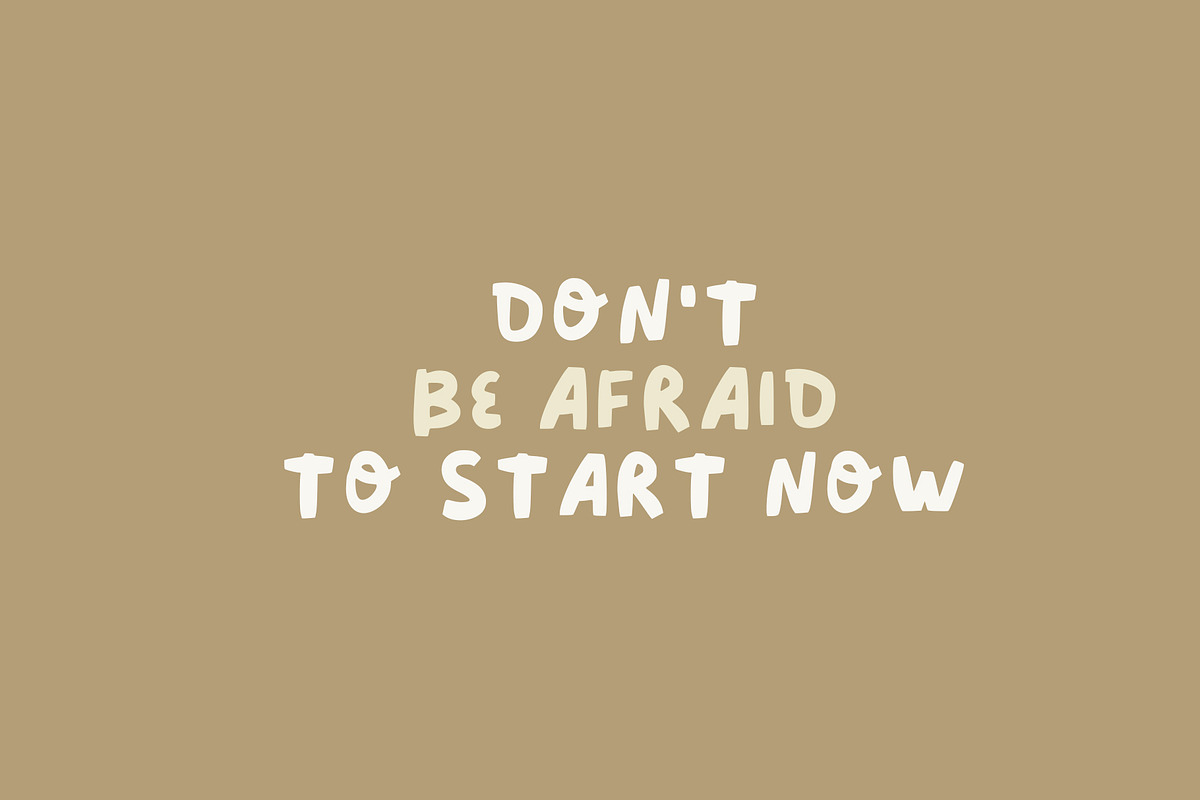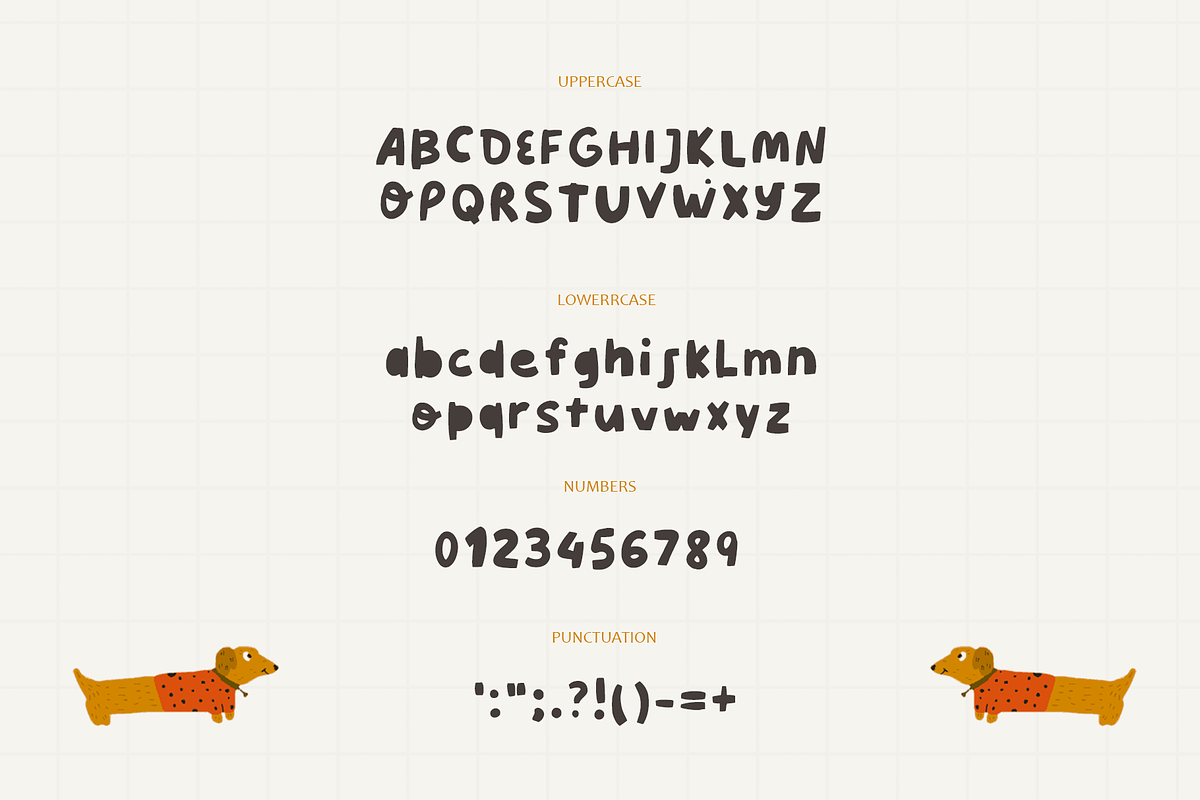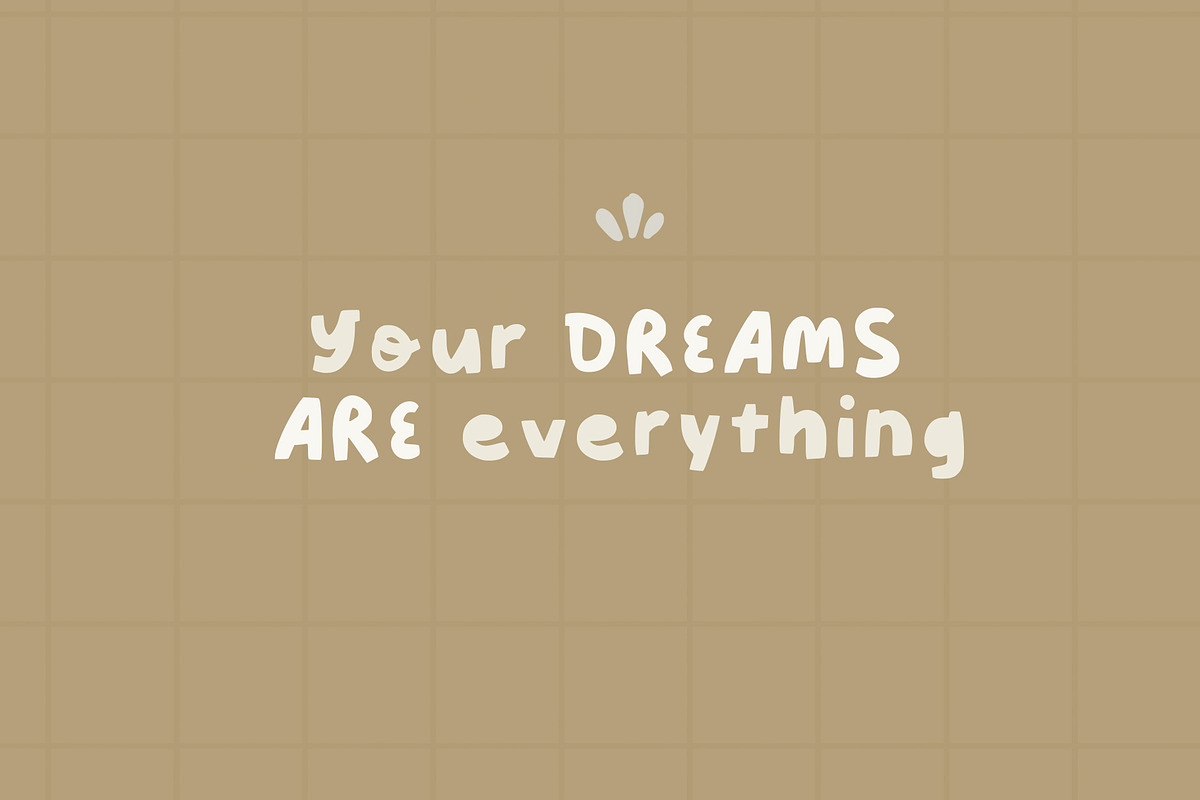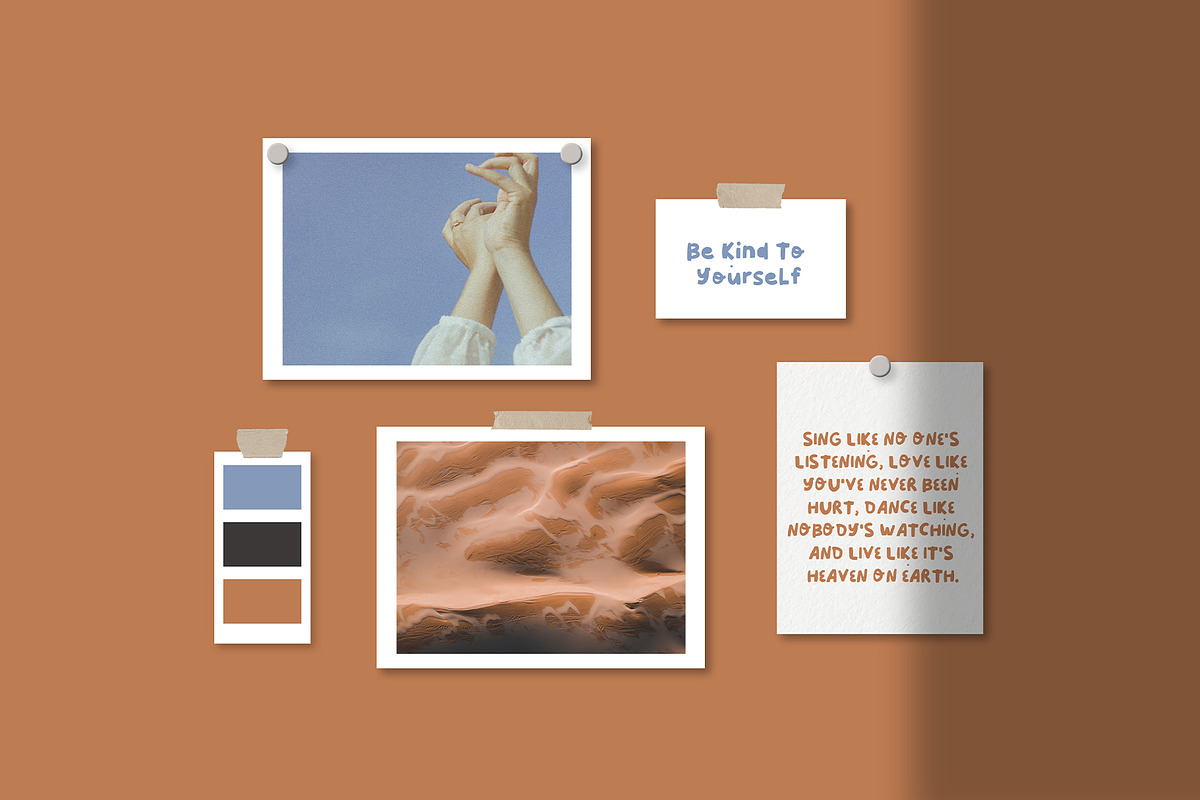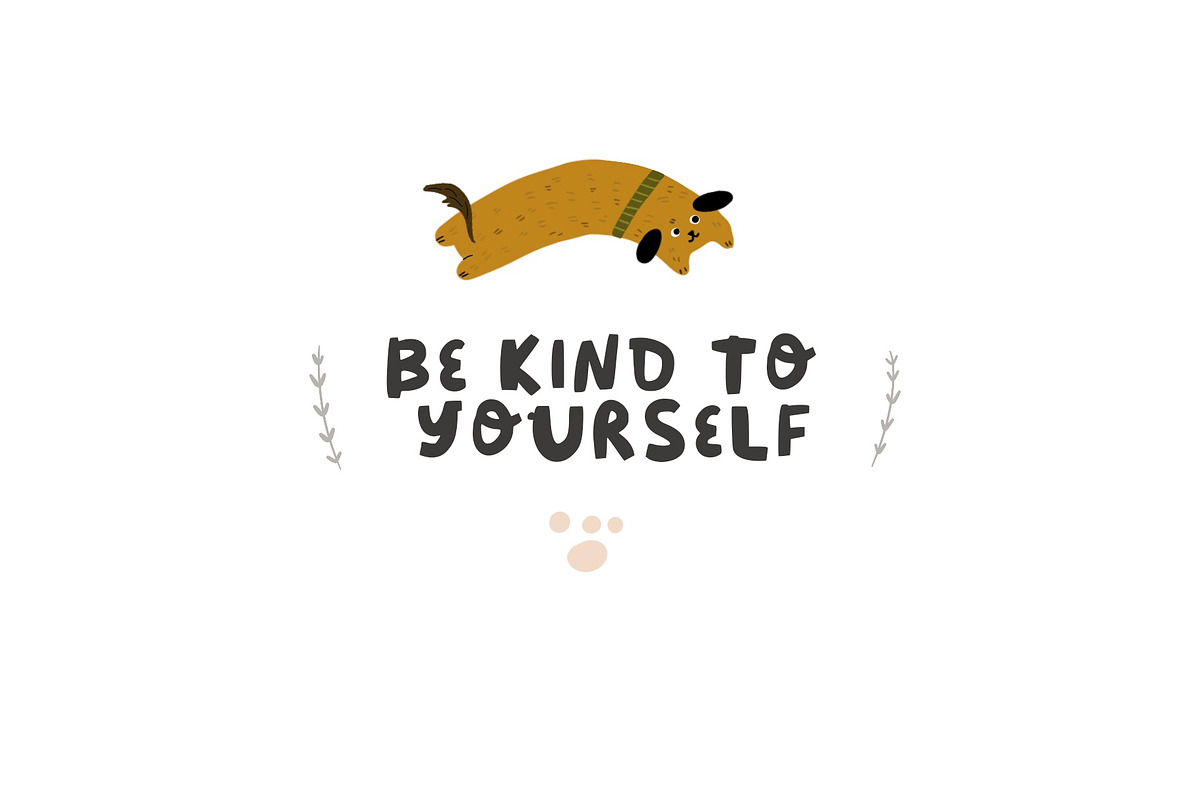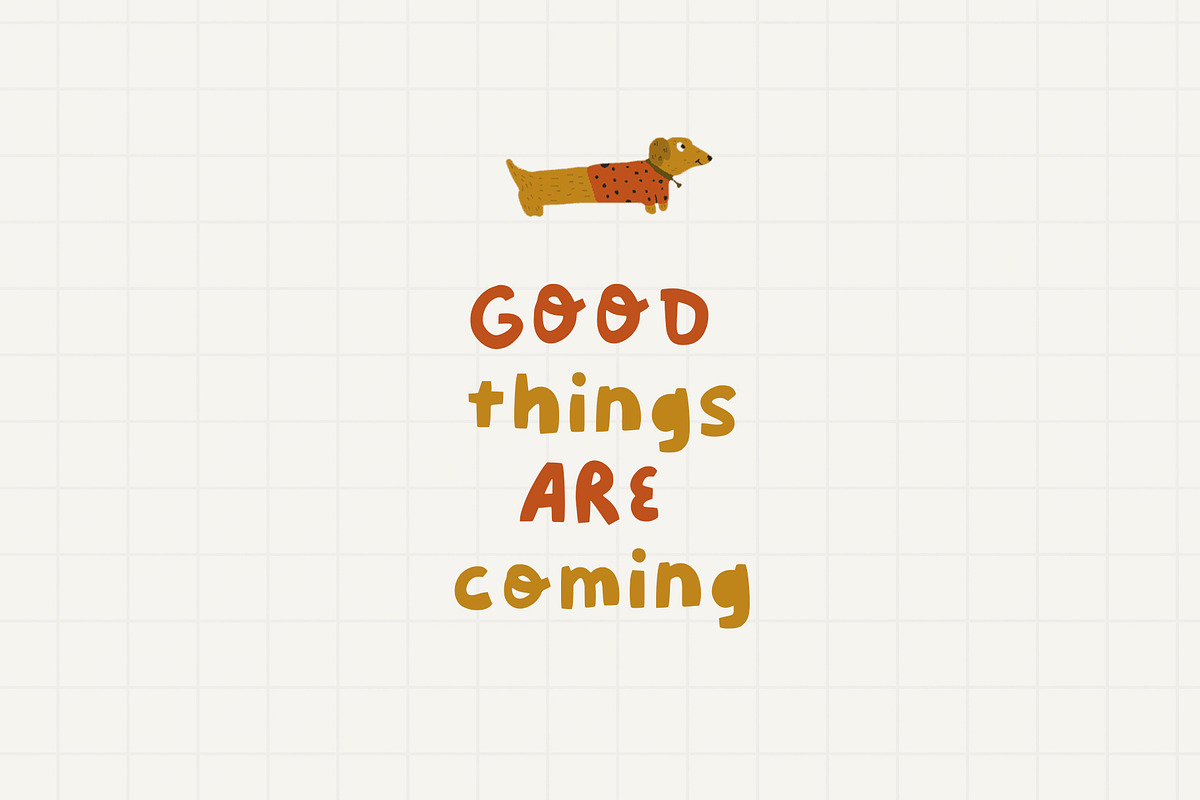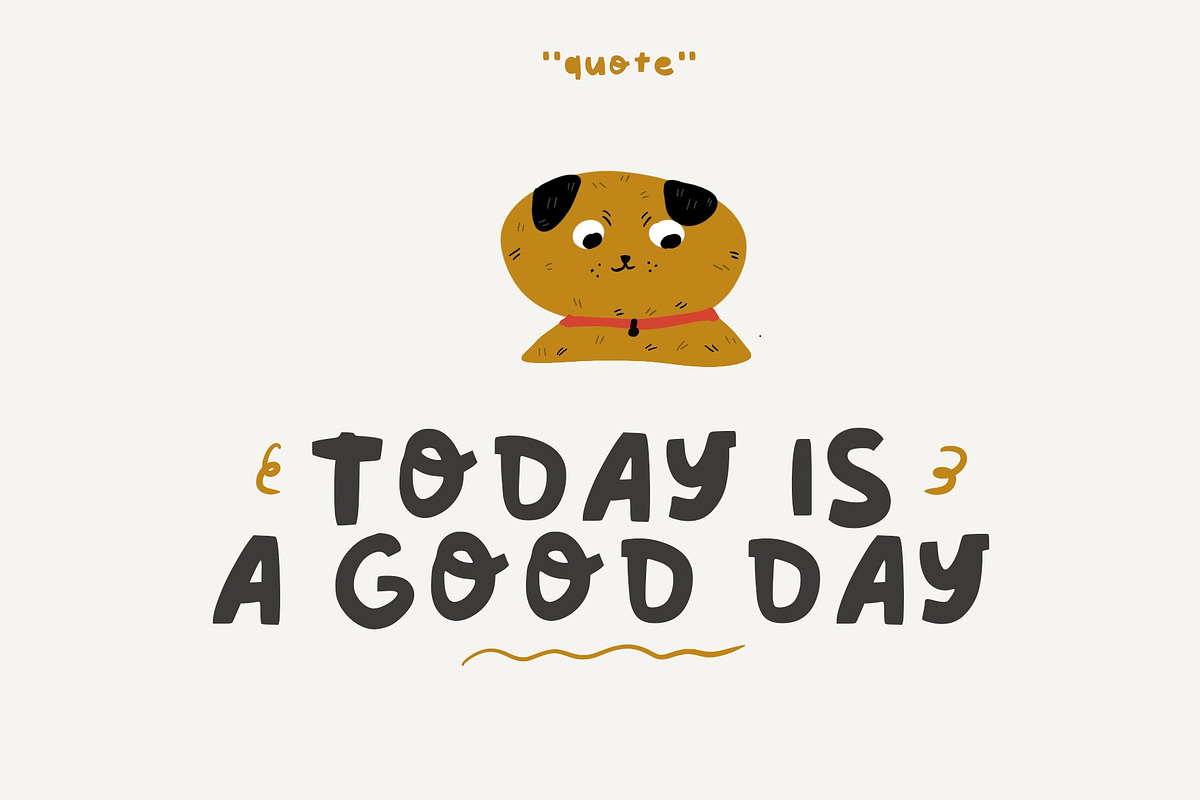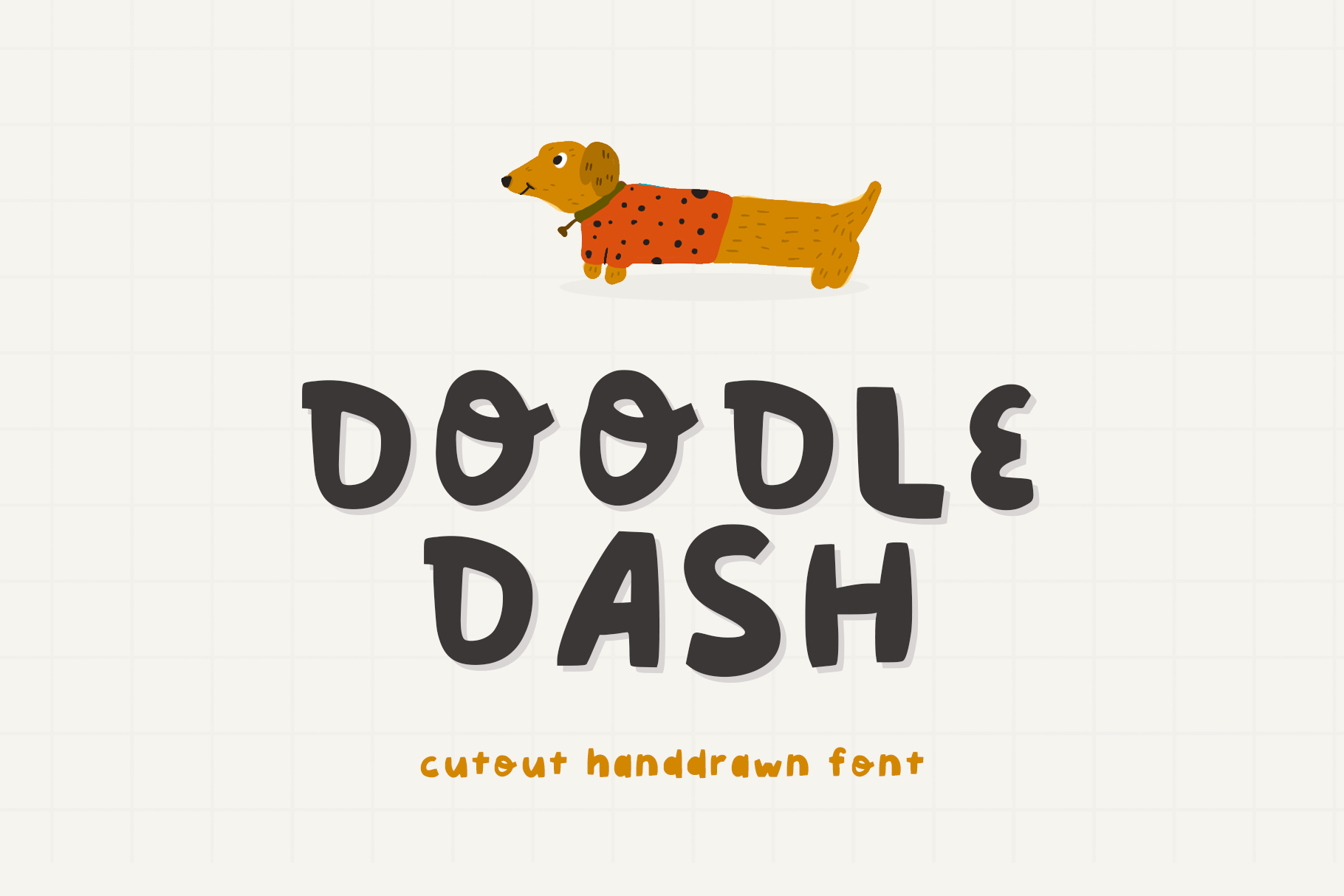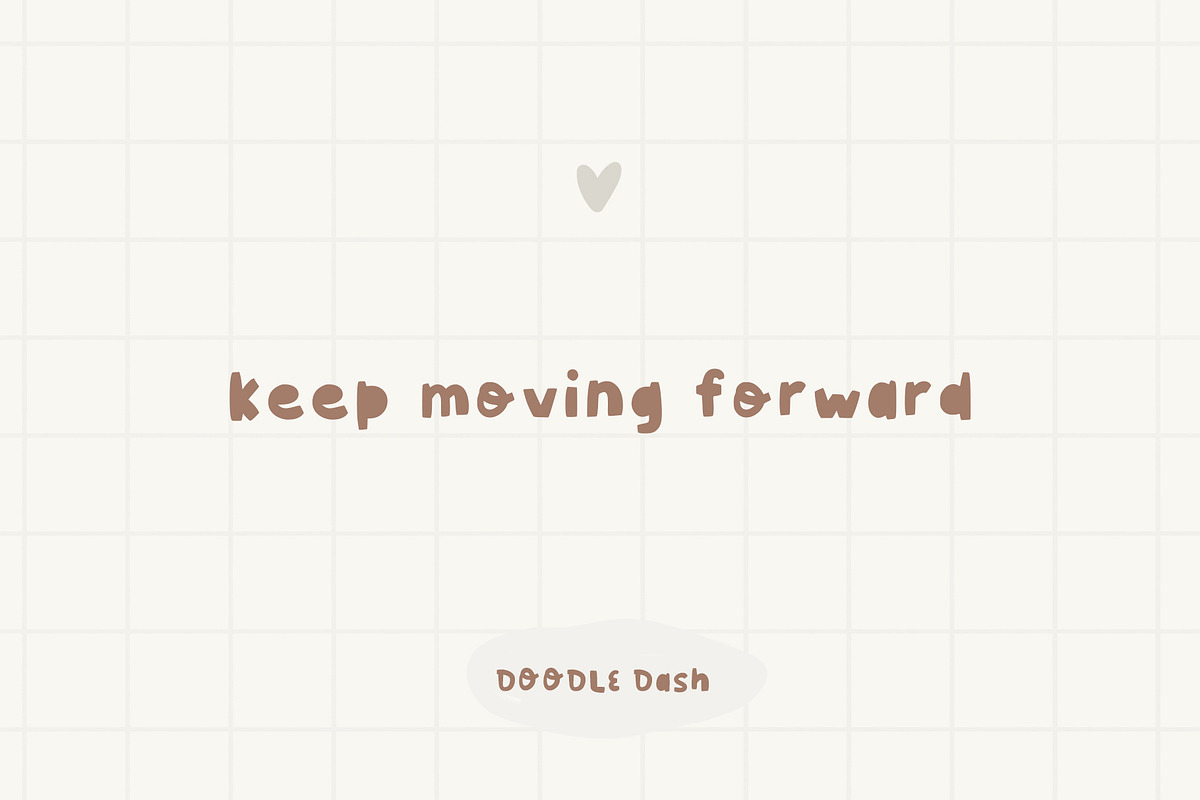
DoodleDash - handwritten cutout font
Hi there! ♡ My new kids cutout font ♡
It's perfect for headlines, social media posts, posters, card, quotes, cricut, etc.